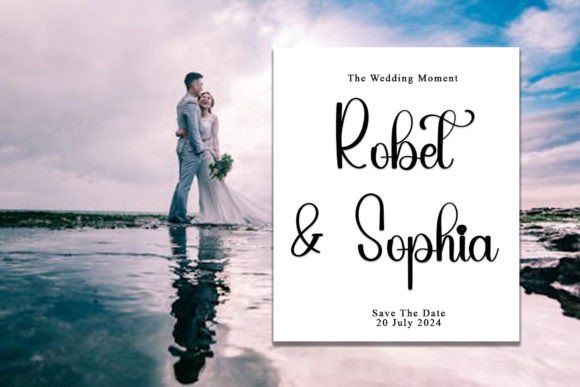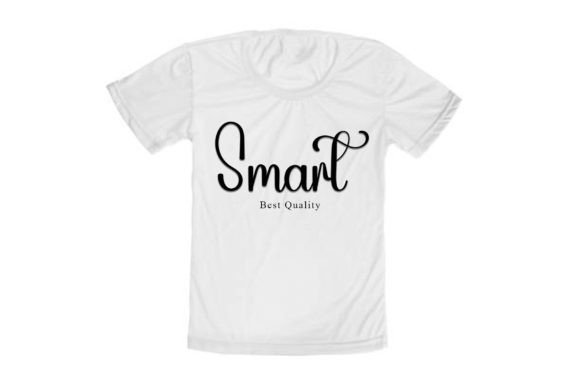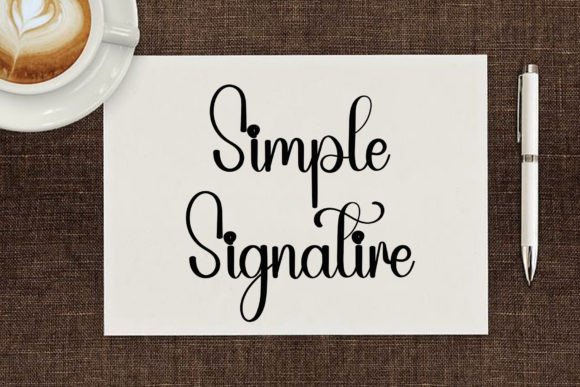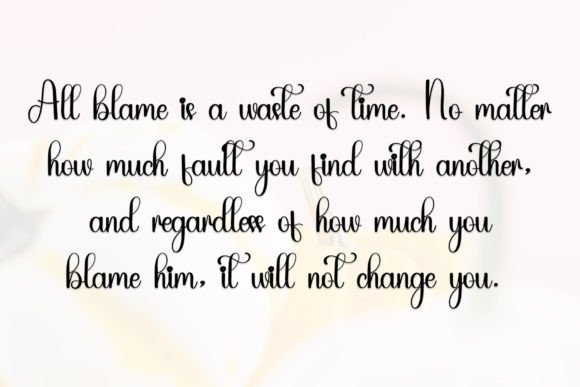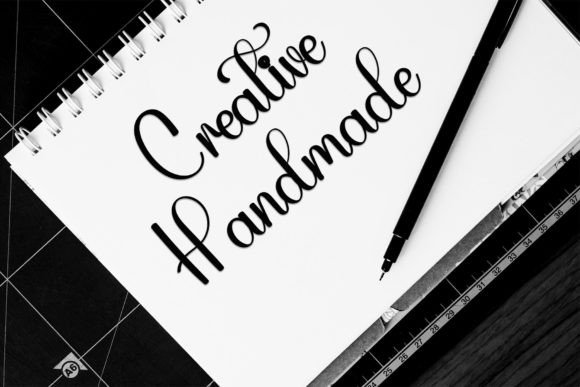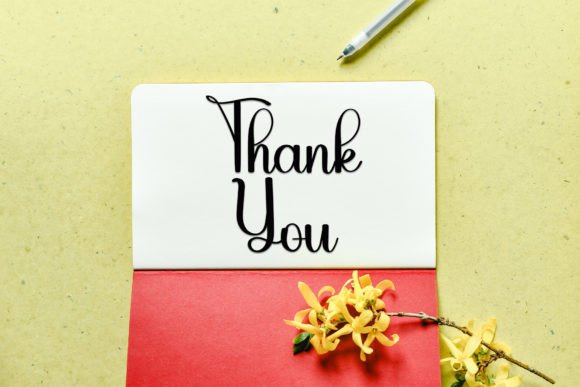
The Perfect Touch of Whimsy: Unlocking the Beauty of Beautiful Sunshine Font
As a designer, have you ever found yourself stuck in a creative rut, searching for the perfect font to elevate your latest project? Perhaps it’s a wedding invitation, a branding campaign, or a social media post that needs a little extra oomph. You’ve scrolled through countless options, but nothing seems quite right – until you stumble upon the Beautiful Sunshine Font.
This stylish handwritten script font is more than just a pretty face; it’s a way to add a touch of elegance and charm to any design. With its fluid strokes and natural flow, the Beautiful Sunshine Font creates a captivating, sophisticated look that’s sure to leave a lasting impression. Whether you’re a seasoned pro or a design newbie, this font is a valuable addition to any creative toolkit.
Beautiful Sunshine Font Key Features
- Unique Characteristics: This font features a unique blend of modern and vintage elements, creating a warm and inviting atmosphere.
Designer Review: Beautiful Sunshine Font
Overall, I’d say the Beautiful Sunshine Font is a solid choice for projects that need a touch of warmth and friendliness. Here’s what I like about it:
- ✨ It’s super versatile and can be used for a wide range of applications, from logos to body text.
- ✨ The font has a clear and legible structure, making it easy to read even in smaller sizes.
- ✨ The ‘sunshine’ vibe is really well-executed, with a nice balance of softness and playfulness.
However, there are a few things that might hold it back:
- ⚠️ The font might be a bit too ‘safe’ for some designers who are looking for something more edgy or avant-garde.
- ⚠️ The character set could be improved, especially when it comes to support for non-English languages.
- ⚠️ Some users might find the font a bit too ‘cute’ or childish, depending on the project context.
Overall, I’d give the Beautiful Sunshine Font 3.5 out of 5 stars. It’s a solid choice for projects that need a friendly and approachable feel, but it might not be the best fit for more complex or high-end designs.
Use the Beautiful Sunshine Font for titles, headings, and other emphasis areas to create a visually appealing design.
Experiment with different font sizes and colors to achieve a unique look.
Combine the Beautiful Sunshine Font with other fonts to create a cohesive and harmonious design.
Birthday and party invitations
Marketing and advertising materials
Branding and logo designs
Alternatives to “Beautiful Sunshine Font” for Designers
Great Vibes Font is a modern, elegant, and whimsical script font that is perfect for creating a warm and inviting atmosphere. It’s ideal for use in branding, advertising, and packaging designs where a touch of personality is required.
Comparison: Great Vibes Font is more modern and elegant compared to the Beautiful Sunshine Font, which has a more classic and vintage feel. Great Vibes Font is also more versatile and can be used in a wider range of designs.
Pacifico Font is a beautiful, elegant, and sophisticated script font that is perfect for creating a luxurious and high-end feel. It’s ideal for use in branding, advertising, and packaging designs where a touch of sophistication is required.
Comparison: Pacifico Font is more elegant and sophisticated compared to the Beautiful Sunshine Font, which has a more casual and playful feel. Pacifico Font is also more suitable for formal and professional designs.
Alex Brush Font is a beautiful, elegant, and refined script font that is perfect for creating a classic and timeless feel. It’s ideal for use in branding, advertising, and packaging designs where a touch of sophistication is required.